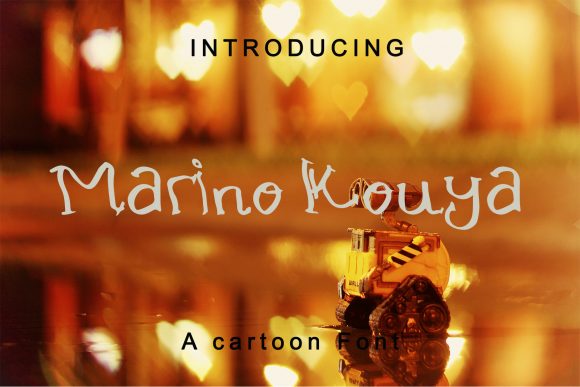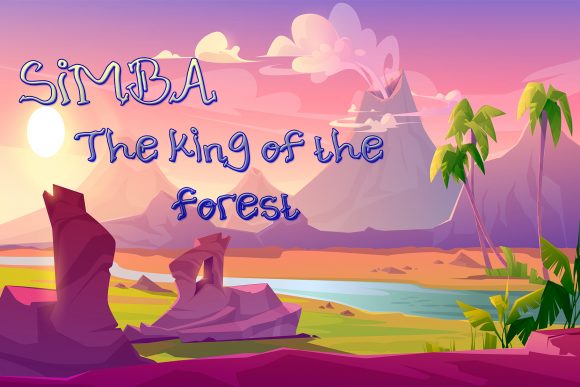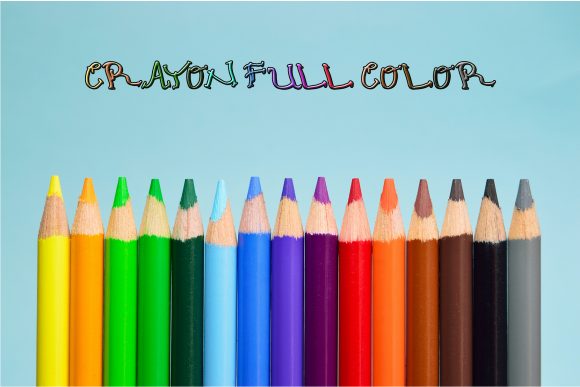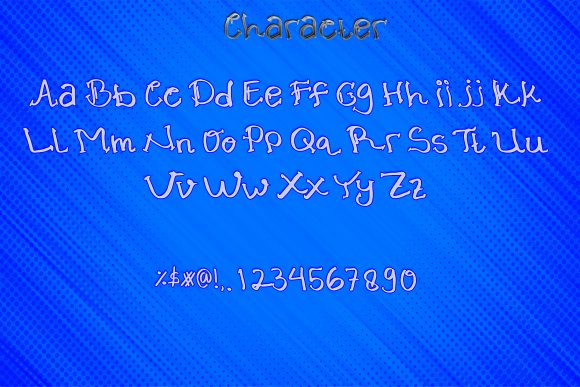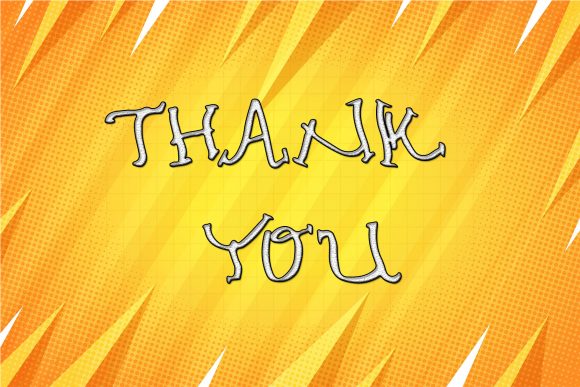
Marino Kouya Font
About Marino Kouya Font
Marino Kouya is a handwritten script font, with an elegant and beautiful look. It looks stunning on wedding invitations, thank you cards, quotes, greeting cards, logos, business cards and every other design which needs a handwritten touch.